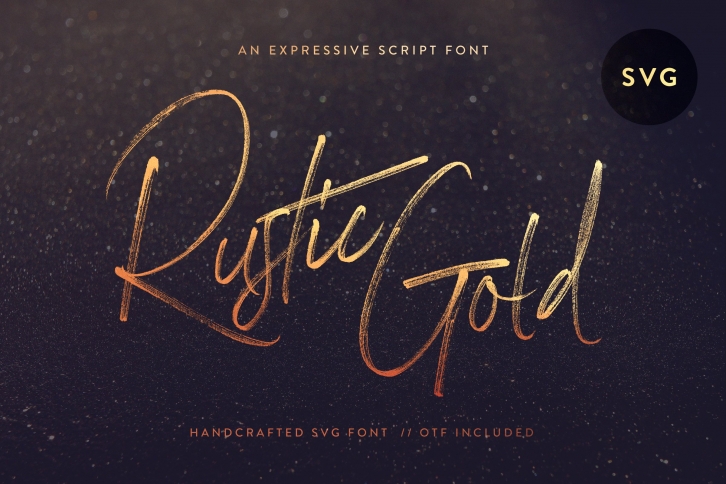
Introducing Rustic Gold! An expressive Opentype SVG brush script font full of personality and stunning textures. Designed to be versatile, Rustic Gold, can take center stage or be used to beautifully complement your favorite sans and serif fonts. Ideal for a variety of design projects from branding to packaging, from apparel to stationery, and everything in between.
- Rustic Gold SVG Font: If you're looking to create handwritten type designs that ooze authenticity and character, Rustic Gold in the SVG format should do the trick! It features high-quality, dry brush pen textures throughout with zero extra work required.
- Rustic Gold Alt SVG Font: An entirely alternate glyph range (uppercase and lowercase) designed to complement the original font design and to improve the overall handwritten appearance.
- Rustic Gold OTF Font: The vector alternative to its SVG sibling. The texture of SVG fonts are great, but not always suitable for the project and unfortunately not widely supported (yet!). So this is the next best thing!
- Rustic Gold Alt OTF Font: Same as the above, just with an alternate glyph range.
- 15 High-Resolution Gold Textures: While experimenting with this font, I paired some gold textures I had laying around and the end result is what inspired the name; Rustic Gold. I couldn't launch this wonderful family without a bunch of gold textures for you to play around with!